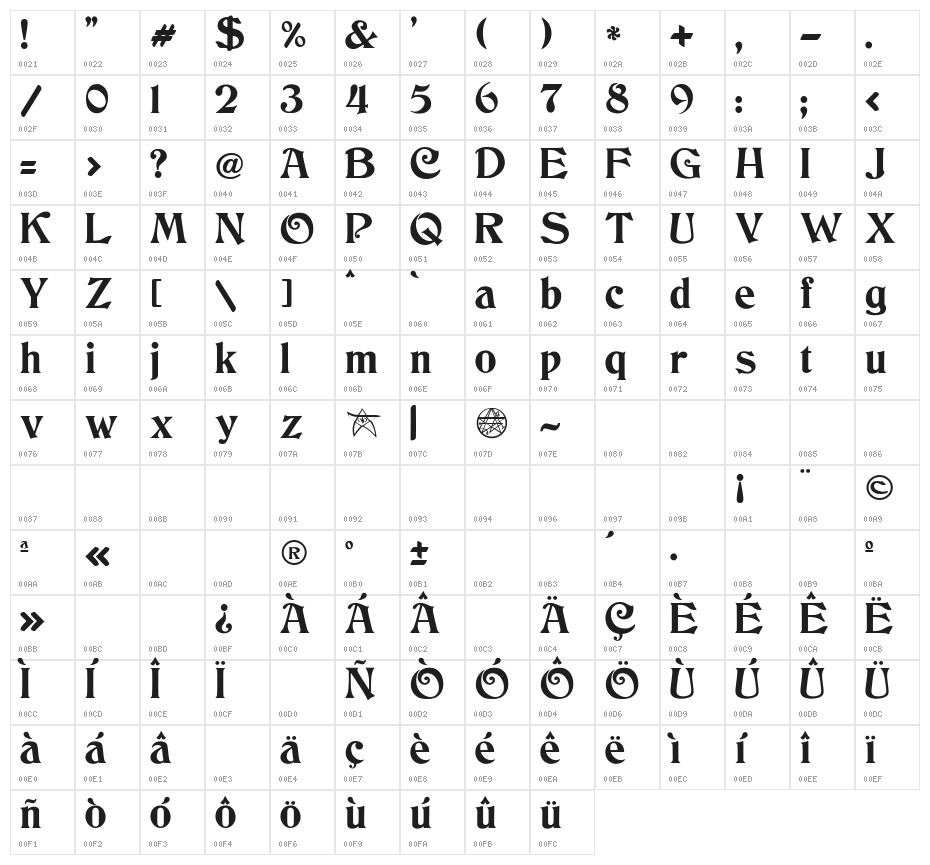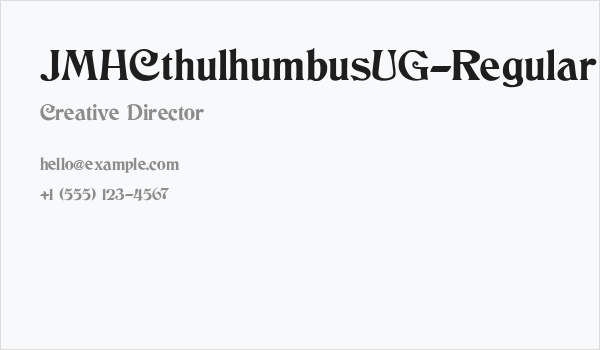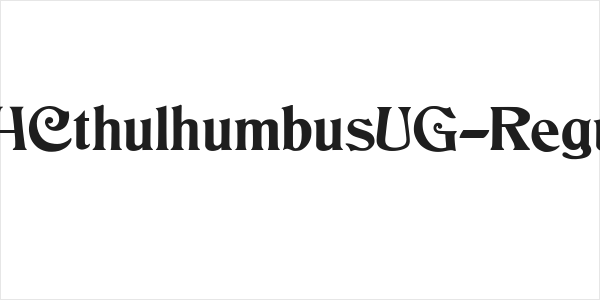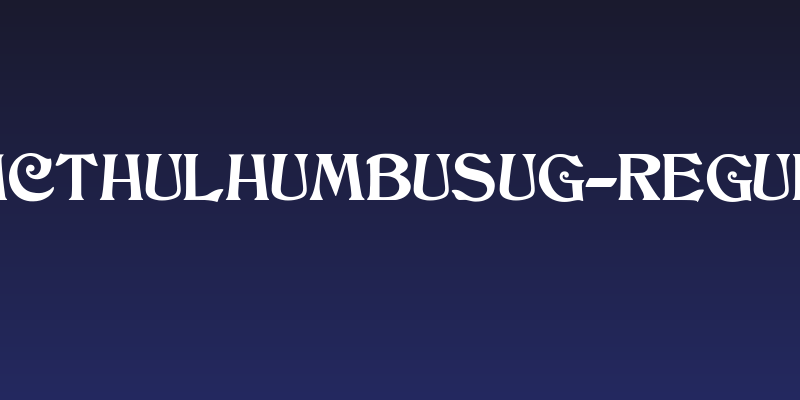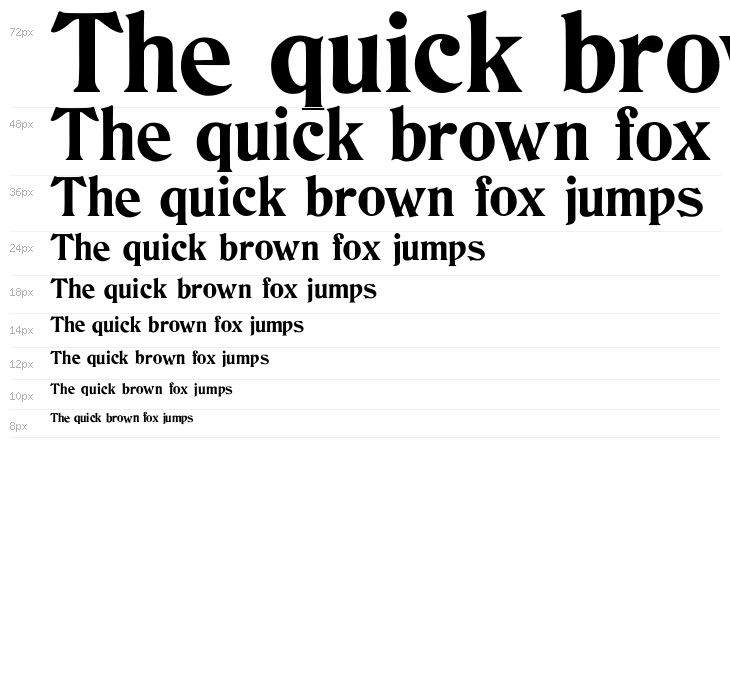
JMHCthulhumbusUG-Regular Font
JMHCthulhumbusUG-Regular Description
This font features a unique blend of bold and decorative elements, with a distinct gothic influence. The uppercase letters exhibit sharp, angular serifs and a slightly condensed form, giving them a striking appearance. The lowercase letters maintain a consistent style, with rounded edges and a bold presence. The numerals are equally bold, with a playful yet structured design. Special characters are creatively styled, adding to the overall decorative nature of the font. This typeface is ideal for projects that require a bold and eye-catching display.
| Proposed Projects | Ideal for posters, book covers, branding, and any project requiring a bold, decorative typeface. |